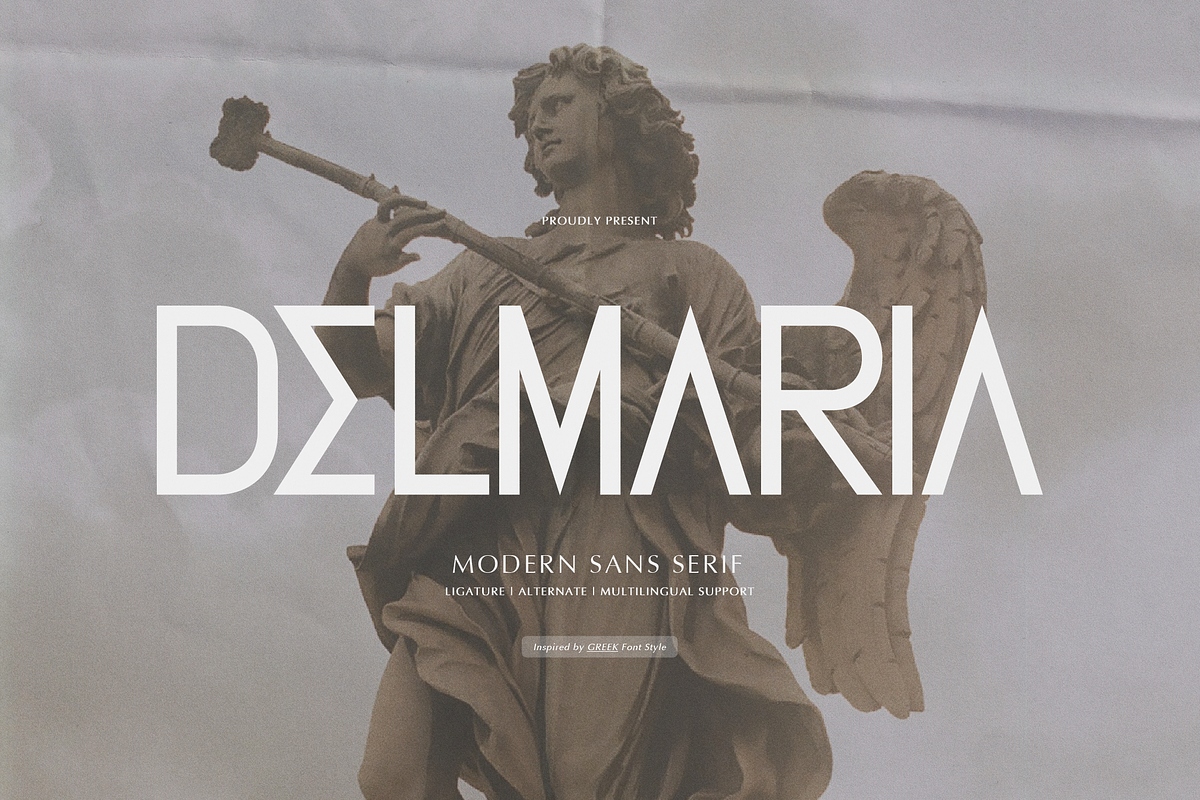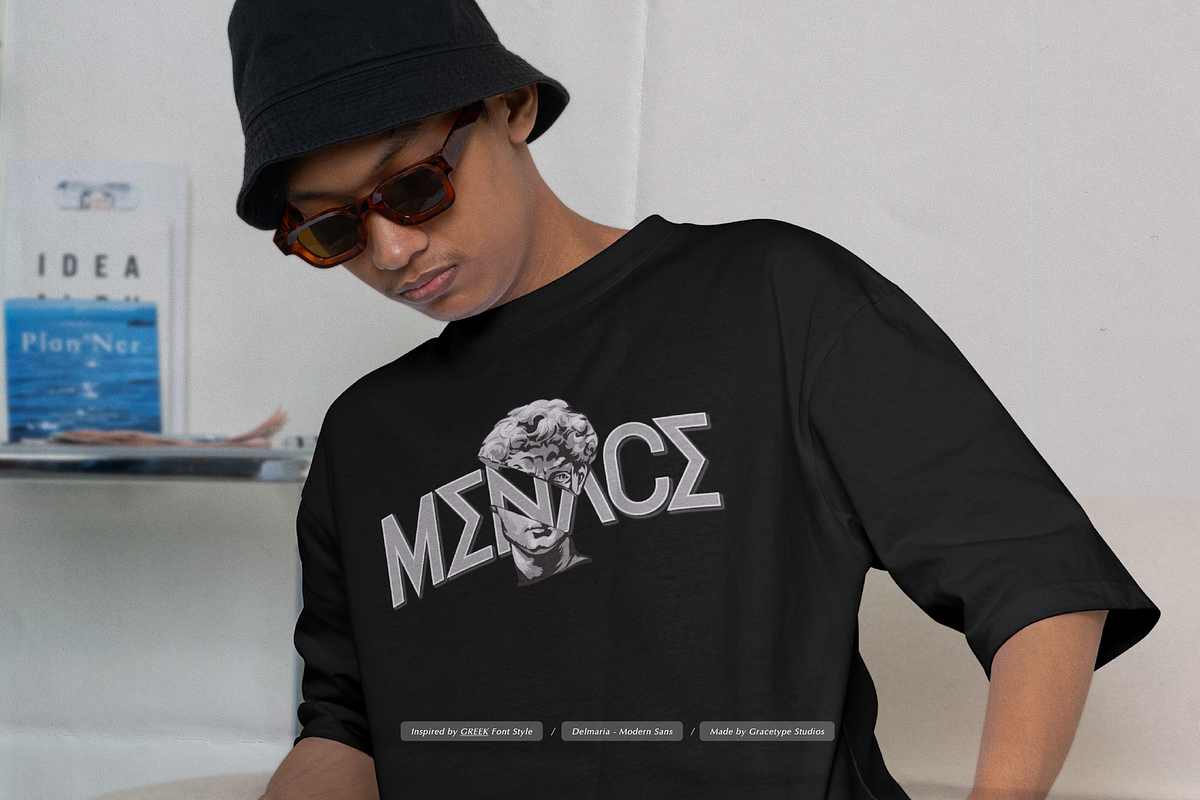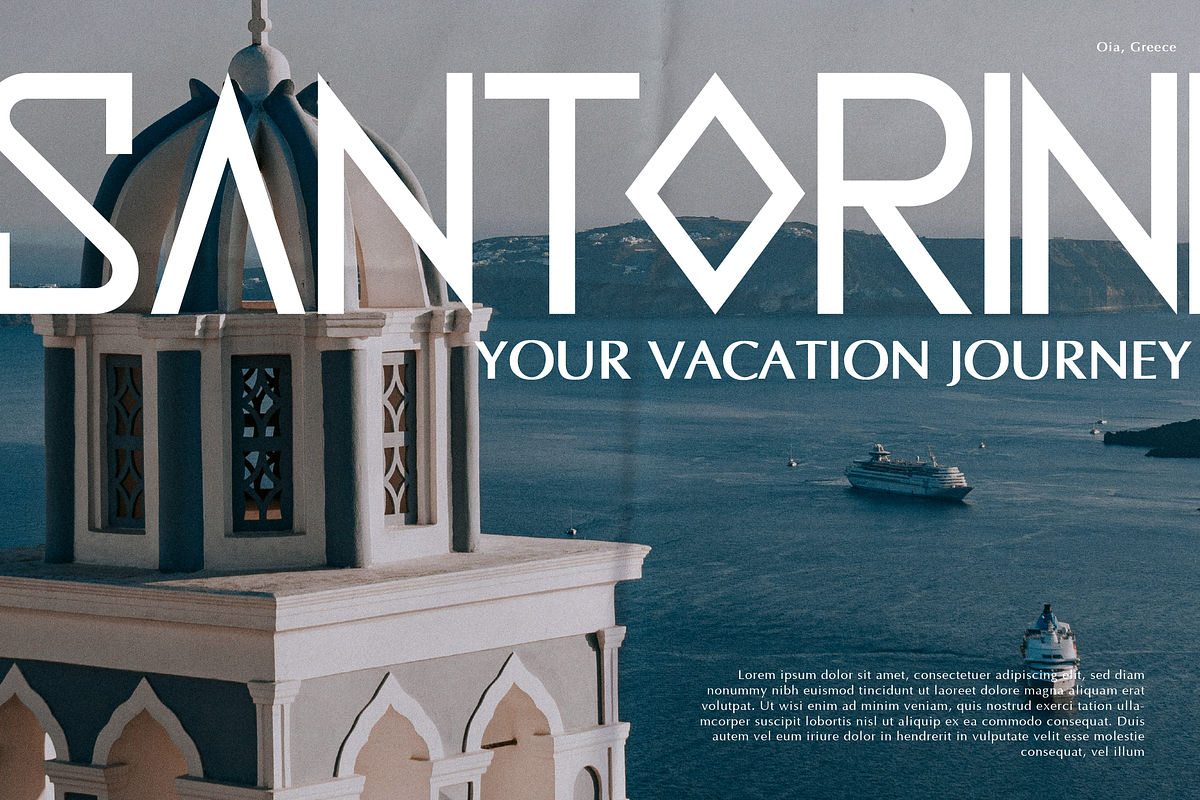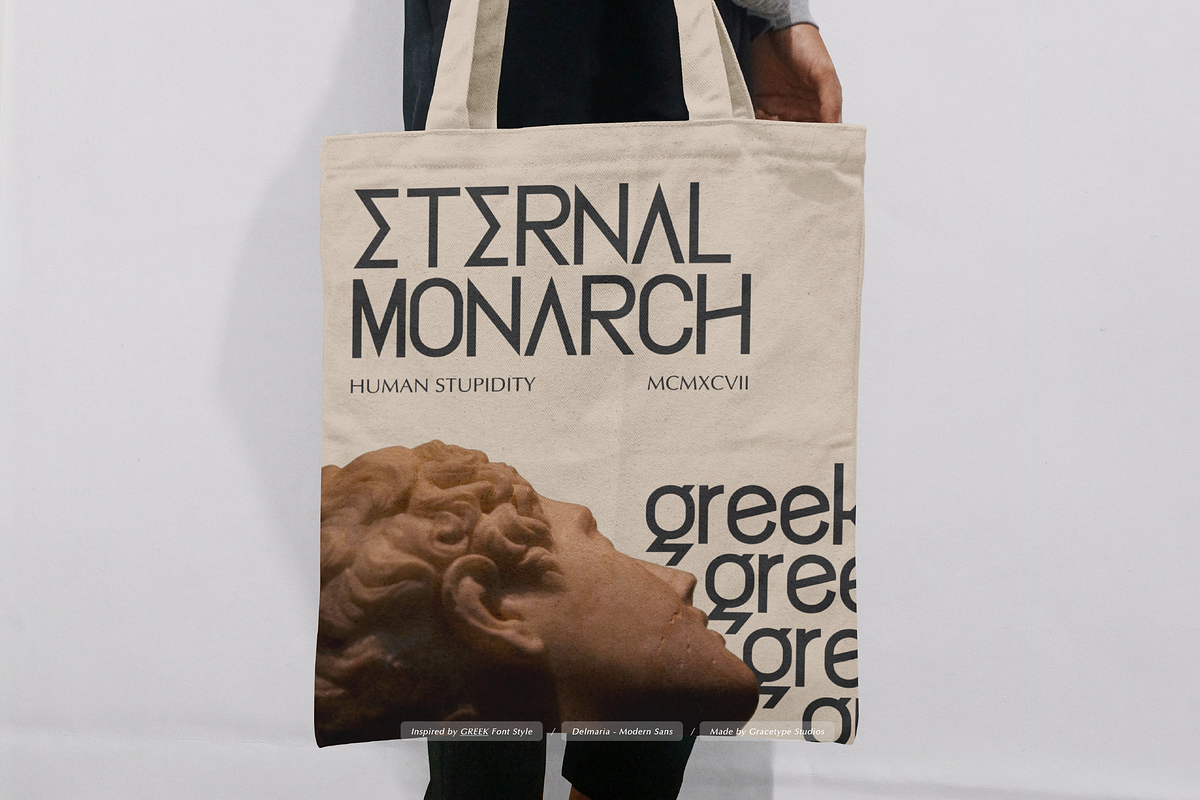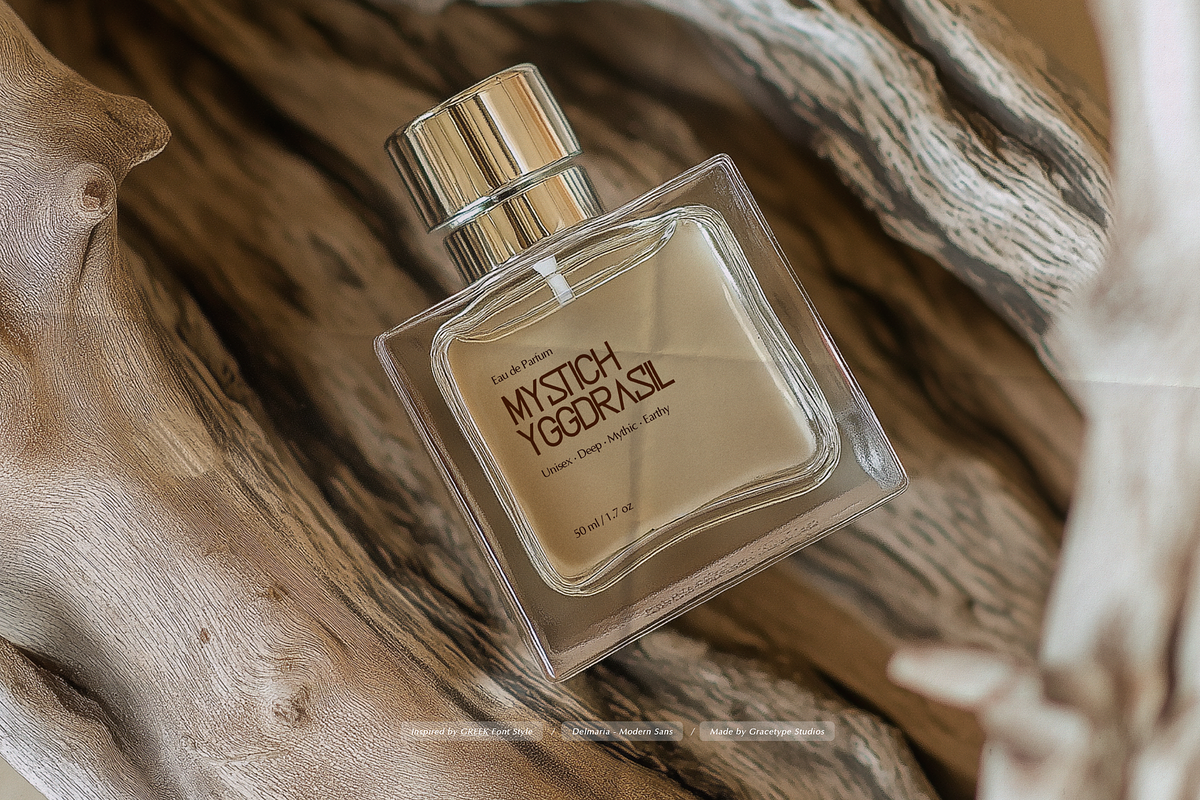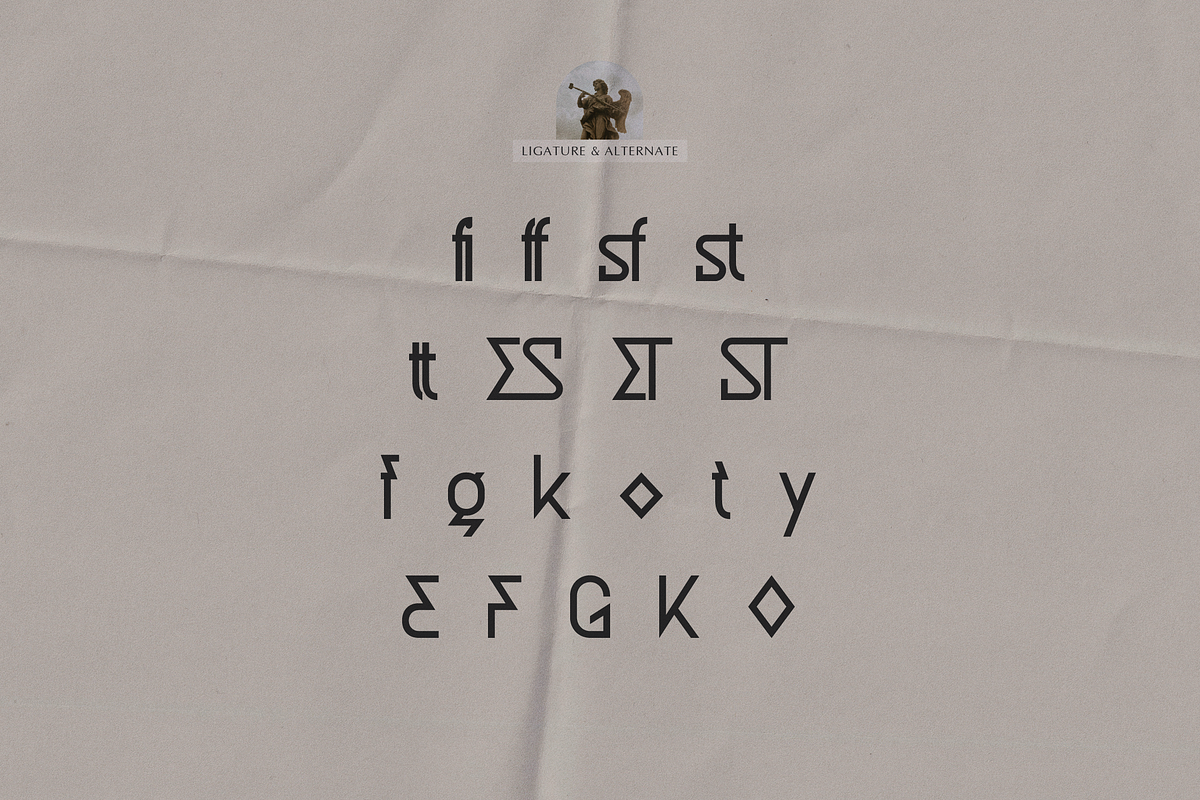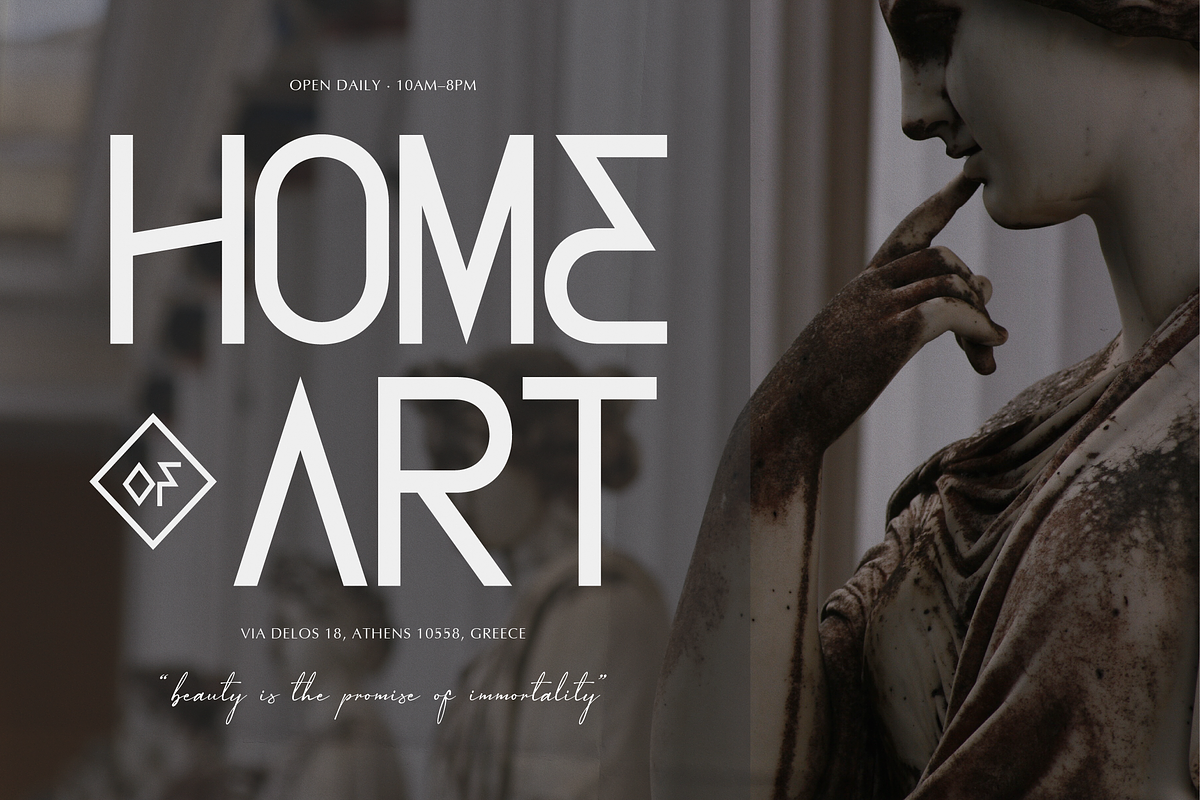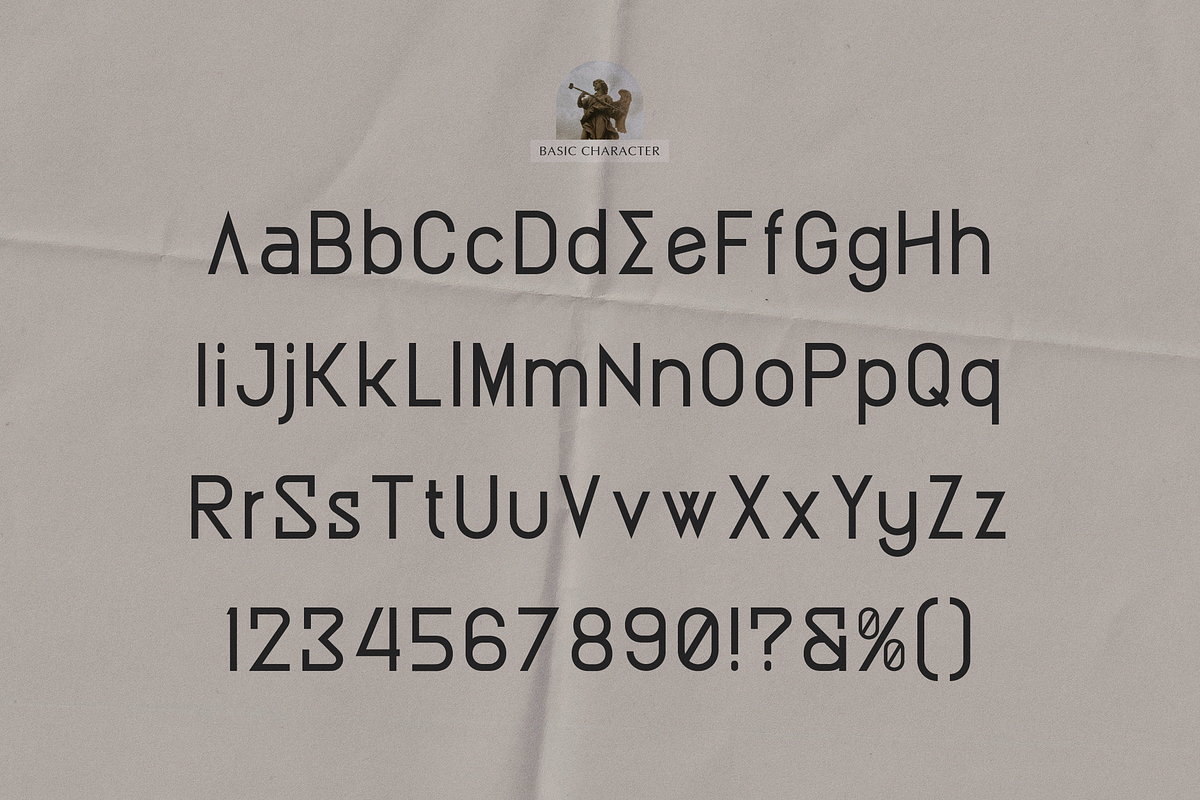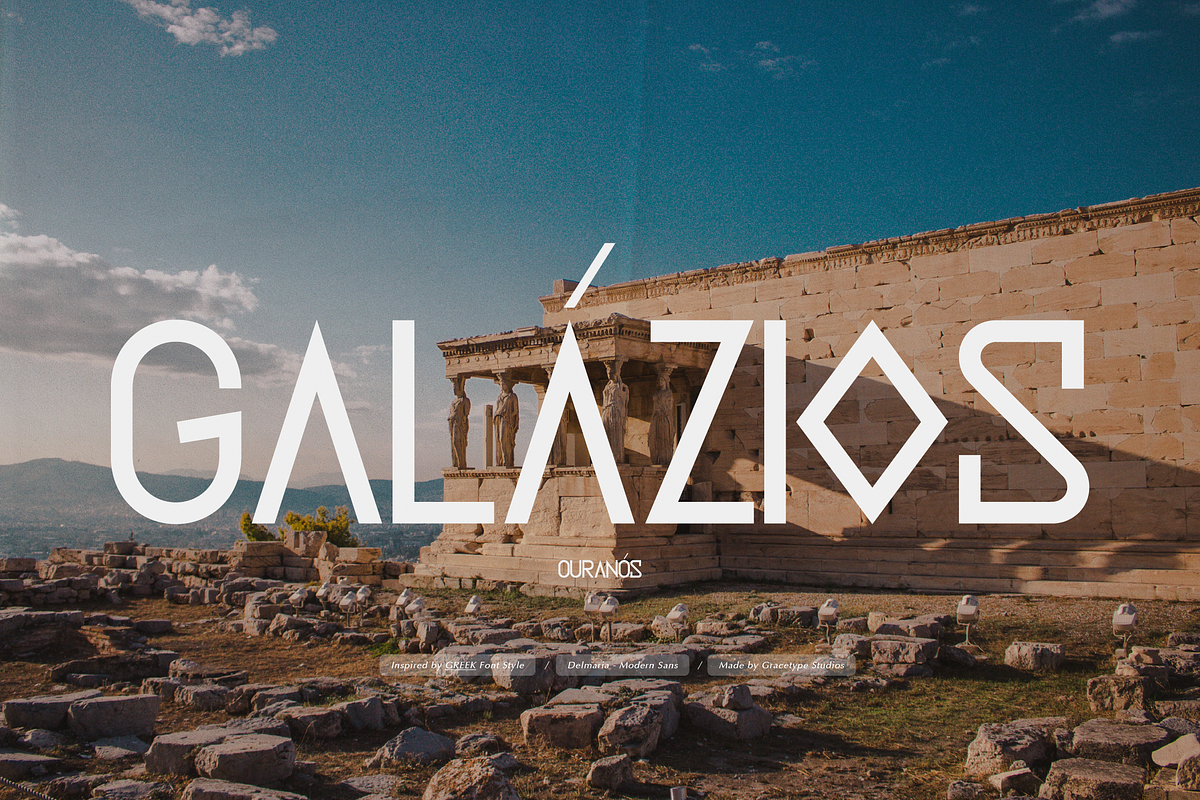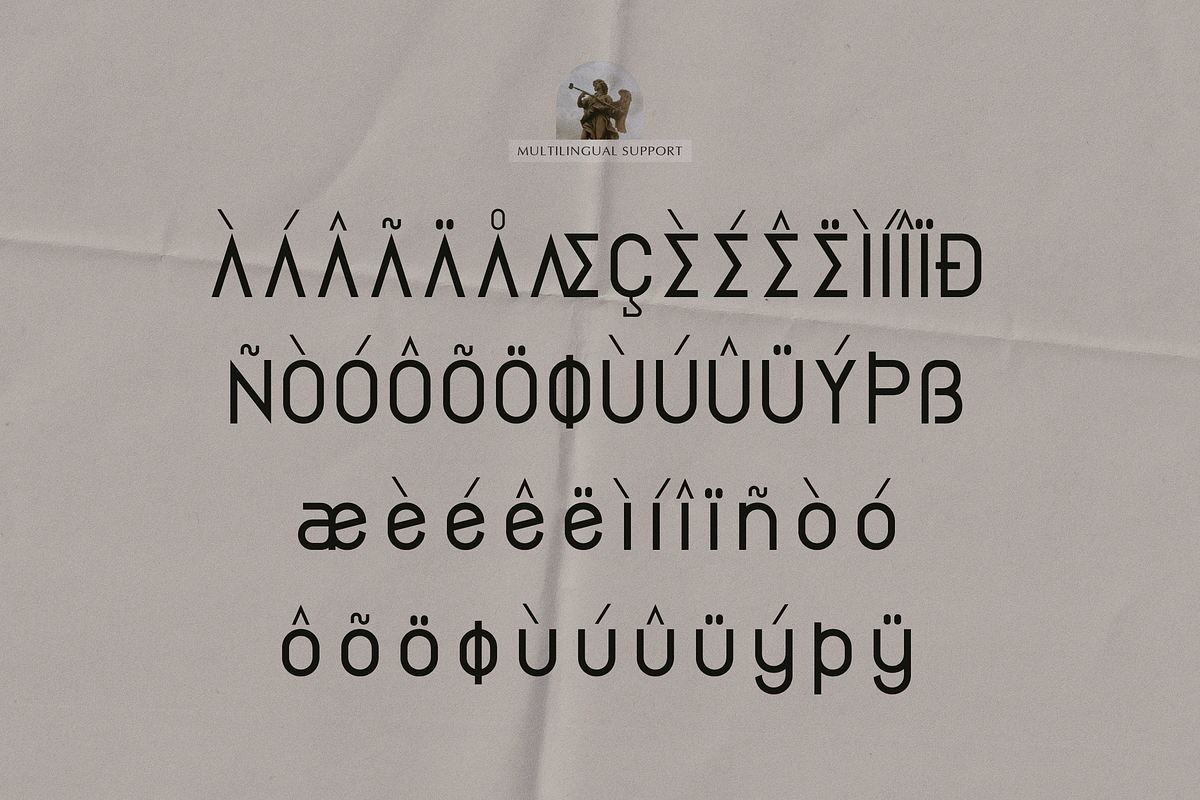
Delmaria | Modern Sans Serif
Delmaria | Modern Sans Serif, from Gracetypestudio, suitable for any projects such as: logos, branding projects, homeware designs, product packaging, mugs, quotes, posters, shopping bags, t-shirts, book covers, name card, invitation cards, greeting cards, label, photography, watermark, special events, and all your other lovely projects that need a Modern Sans Serif taste.